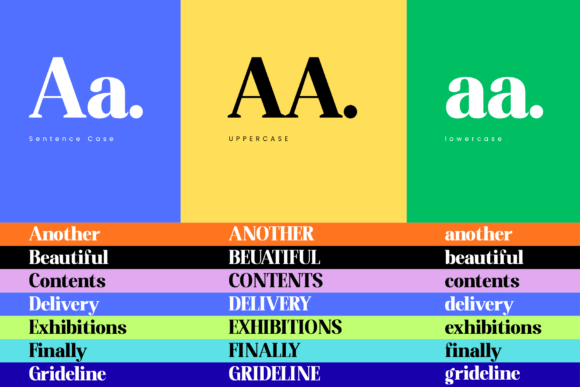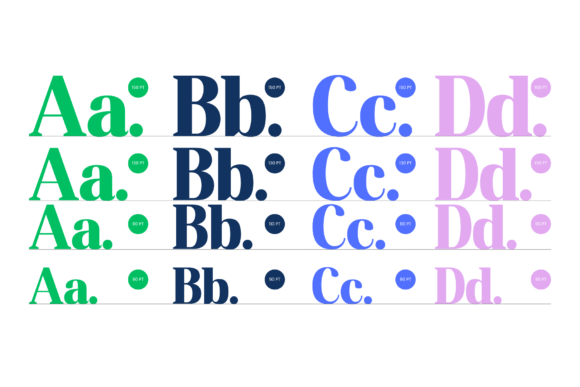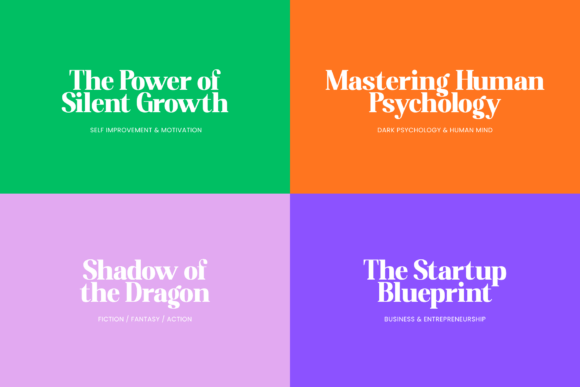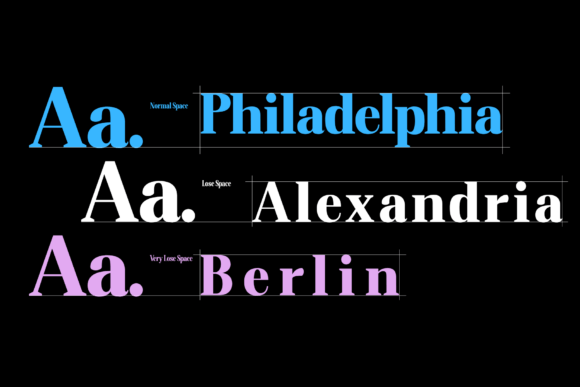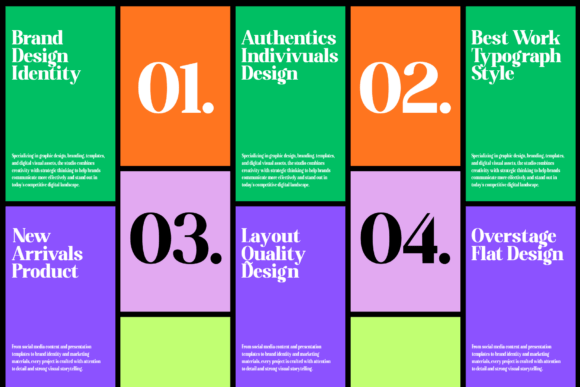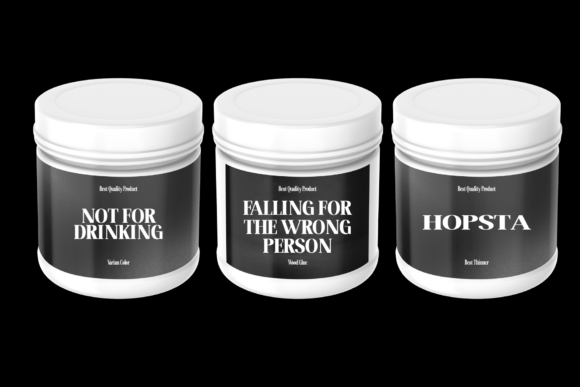
Introducing Altaries Font: Elevate Your Designs with Elegance and Versatility
Are you looking for a font that exudes elegance, sophistication, and class? Look no further than Altaries, a versatile serif font designed to elevate your designs to new heights. With its classic appeal and modern twist, Altaries is the perfect choice for designers and crafters seeking to create stunning visual content.
The Altaries Font Family
Altaries is a comprehensive font family that comprises both upright and italic styles, each with 16 weights ranging from thin to bold. This extensive range allows you to experiment with various typography styles, ensuring that your design is always on point. Whether you’re working on a logo, advertisement, packaging, or book cover, Altaries provides the flexibility to create a unique and captivating visual identity.
Elegant, Modern, and Contrasting
Altaries boasts a distinctive, contrasting design that sets it apart from other serif fonts. Its elegant and modern aesthetic makes it an excellent choice for projects that require a touch of sophistication. The font’s classic appeal ensures that it remains timeless, while its contemporary twist keeps it fresh and relevant.
Altaries is a versatile font that can be used for various design projects, including:
- Logos: Create a lasting impression with a custom logo that showcases your brand’s personality and values.
- Advertisements: Grab attention and convey your message with a clear, easy-to-read font that commands respect.
- Packaging: Elevate your product’s packaging with a sophisticated font that communicates luxury and quality.
- Book and Magazine Covers: Create eye-catching titles and descriptions that entice readers to dive into your story.
- Titles and Descriptions: Use Altaries to add a touch of elegance to your titles, headings, and descriptions, making your content more engaging and shareable.
Why Choose Altaries?
With so many fonts available, why choose Altaries? Here are just a few compelling reasons:
- Ease of Reading: Altaries is designed to be easy on the eyes, making it perfect for body text, captions, and other written content.
- Flexibility: With 16 weights and both upright and italic styles, Altaries offers unparalleled flexibility for designers.
- Timeless Appeal: Altaries’ classic design ensures that your work will remain stylish and relevant for years to come.
Get Creative with Altaries
In conclusion, Altaries is a game-changing font that offers a unique blend of elegance, versatility, and sophistication. Its extensive font family, contrasting design, and ease of reading make it an excellent choice for designers and crafters seeking to create stunning visual content. Whether you’re working on a logo, advertisement, packaging, or book cover, Altaries is the perfect font to elevate your designs and leave a lasting impression.